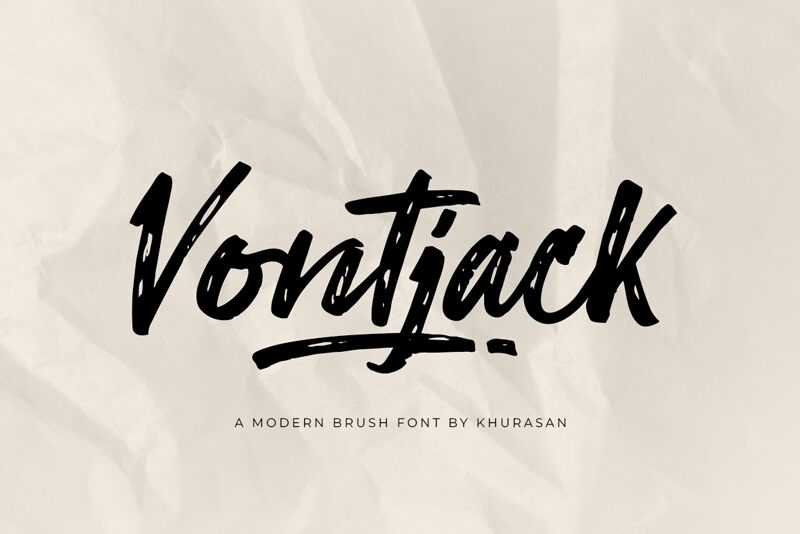
Vontjack
Vontjack, the latest creation of renowned font designer Khurasan, is a bold and expressive brush font that exudes personality. With its thick strokes and playful curves, Vontjack is perfect for projects that demand attention - from eye-catching logos to inspirational quotes on social media. This semi-bold typeface comes in a variety of widths, making it versatile enough for everything from headlines to body text. Whether you're designing a flyer for your band's next show or creating an Instagram post that needs to stand out, Vontjack is the brush font you need.